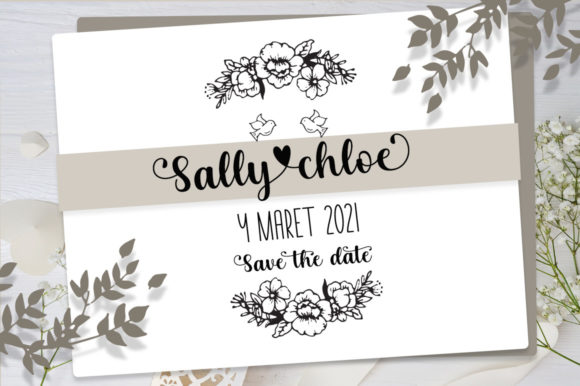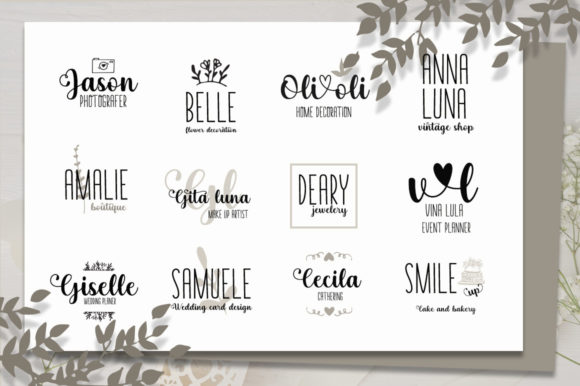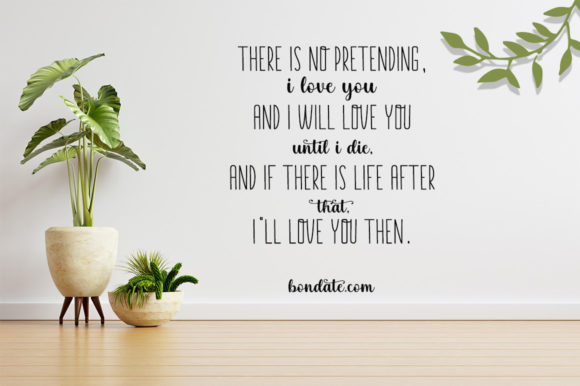
Introduction to Romance Jollypetter Font
Romance Jollypetter is an elegant and dainty duo font (handwritten and sans serif), that features sweet and delicate swashes.
This original look will appeal to a wide range of crafty ideas, from letterheads and titles, to stationery .
Romance Jollypetter Font offers exceptional quality and versatility, making it a valuable addition to your design toolkit. Whether you’re creating for personal projects or commercial use, Romance Jollypetter Font delivers professional results.